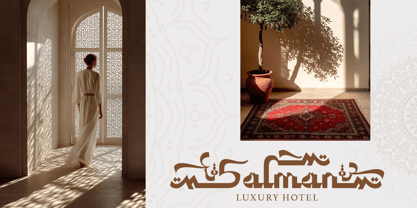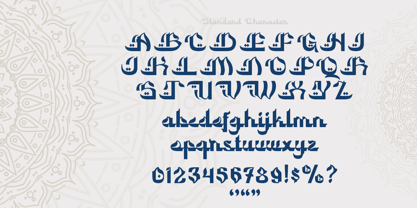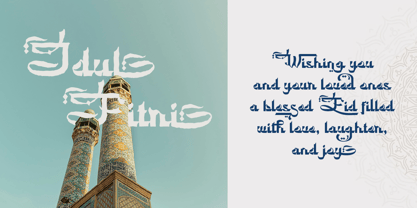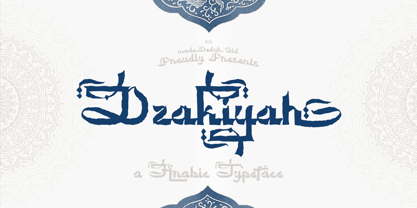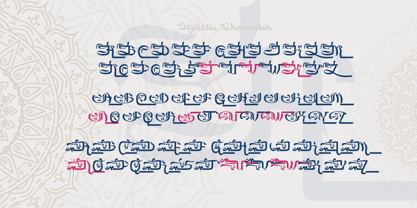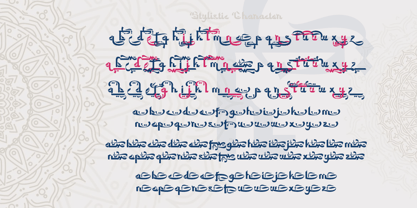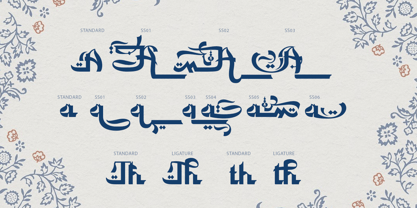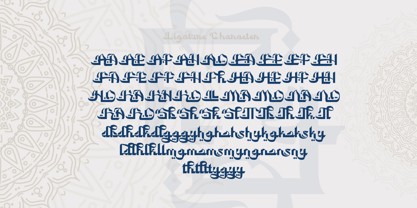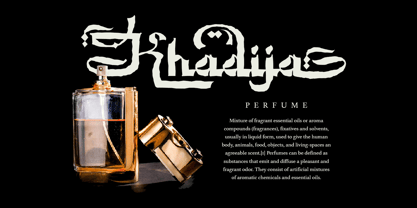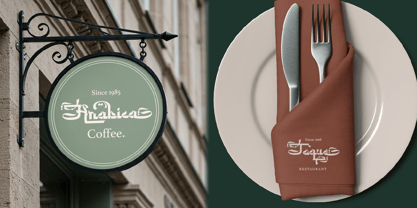
Dzakiyah
by madeDeduk
Introducing Dzakiyah, font displays an appealing blend of modern typographic style with distinctive Arabic calligraphic elements. Its letterforms are highly decorative, featuring numerous curves, smooth connections, and ornaments that resemble traditional Arabic scripts such as thuluth or diwani. Details like elongated letter tails, flowing lines, and decorative dots create a strong artistic impression while enhancing an elegant and refined Islamic aesthetic. Furthermore, this font demonstrates a balance between readability and visual beauty. Despite its relatively complex style, the arrangement of the letters remains structured and recognizable. The Arabic elements are not merely decorative but also serve as a strong visual identity, making this font highly suitable for Islamic-themed designs such as logos, religious posters, or creative works that aim to convey an exotic, luxurious, and artistic impression.